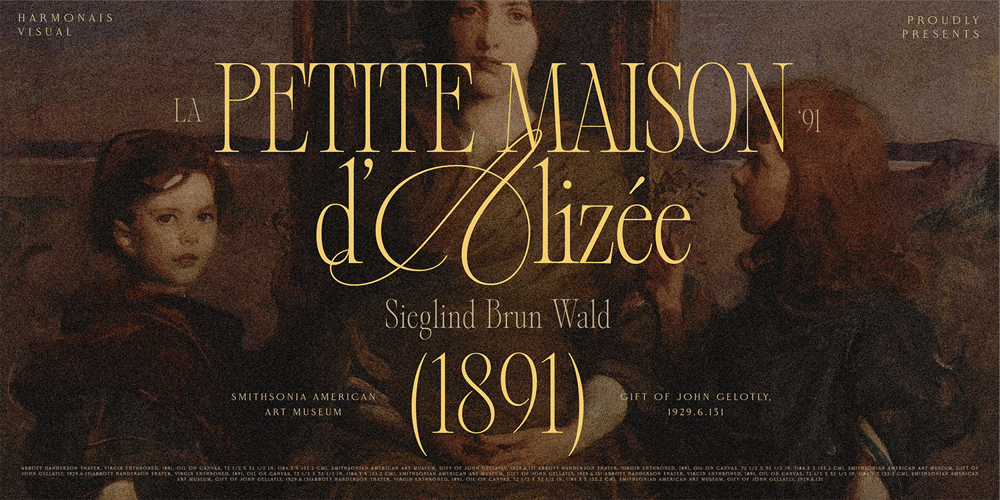
HV Alizee
HV Alizee font
HV Alizee Font Family was designed by Max Duy T., Ivy Xuyen Phan and published by Harmonais Visual. HV Alizee contains 3 styles and family package options. Alizée is an exquisite fusion of calligraphy and serif typeface, exuding a vintage charm and nostalgic feel that makes it perfect for a wide array of design applications. This unique blend of styles infuses every design with an added touch of sophistication. Ideal for branding initiatives, editorial designs, and social media content, Alizée offers versatility in its three styles: Regular, Petite, and Grande. The Petite style presents a mix of calligraphic uppercase and serif lowercase, while the Grande style pairs calligraphic uppercase with uppercase serif, lending diverse aesthetic options to your design toolkit.